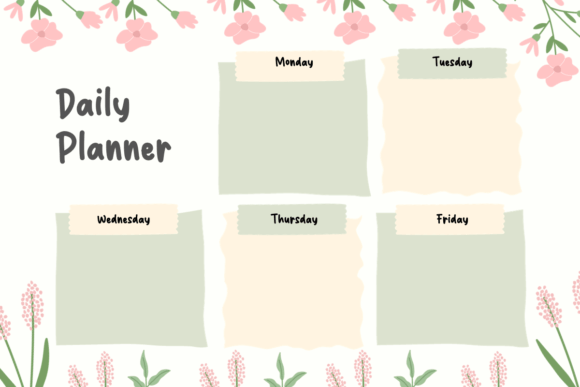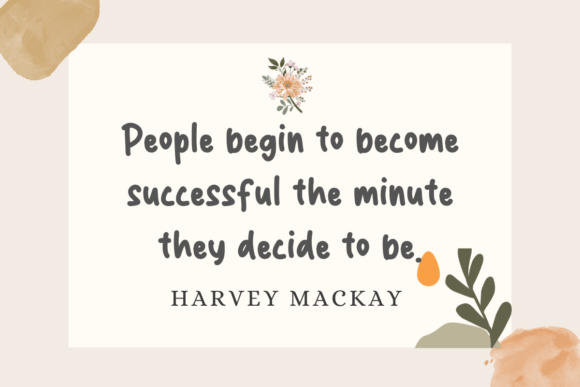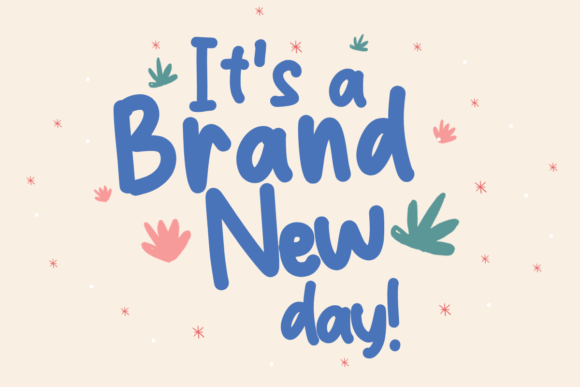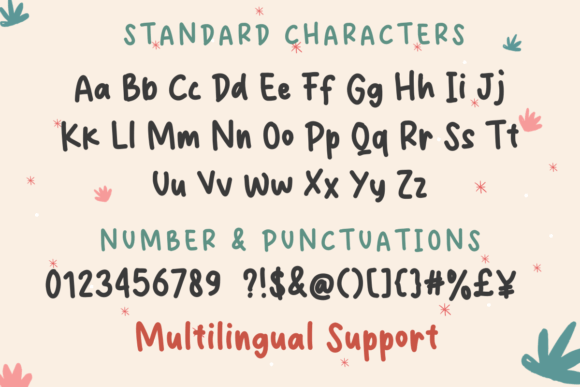
Introduction to Hello Blossom Font
Introducing “Hello Blossom,” a digital font product meticulously crafted with hand-drawn strokes to impart a unique and natural allure.
Perfectly suited for a myriad of creative applications, including magazines, wedding invitations, quotes, branding, logos, and various other design projects, “Hello Blossom” elevates your work with its authentic and distinctive charm .
Key Features of Hello Blossom Font